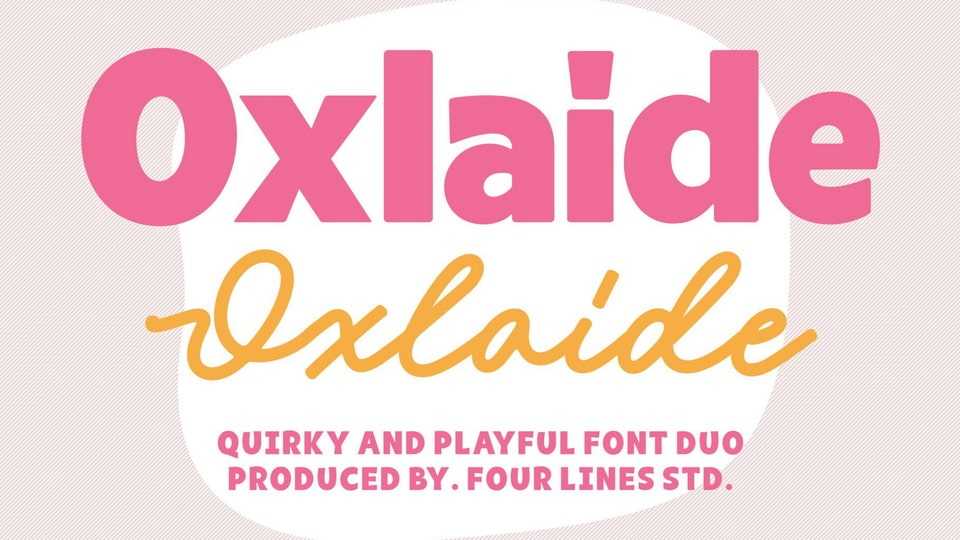
Download Oxlaide font, a bold and playful display font that’s designed to capture attention and add a touch of whimsy to your projects. With its rounded corners and playful style, Oxlaide font is the perfect choice for a wide range of creative endeavors.
Designer: Fourlines Design